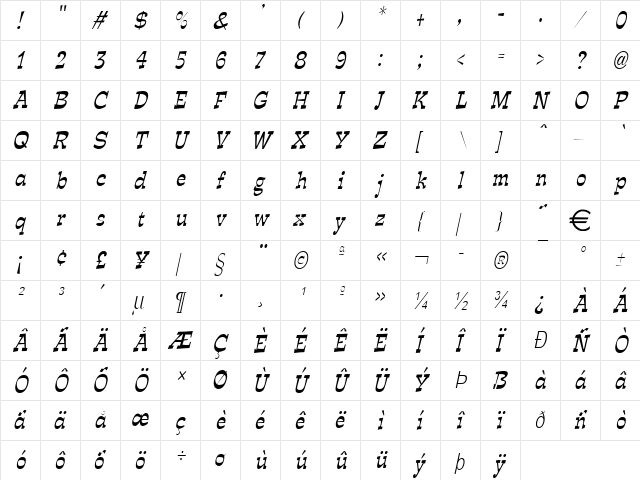
ExposeThinCondensed Italic Font Preview
Design Context for ExposeThinCondensed Typeface
ExposeThinCondensed is a composed and adaptable typeface that performs quietly and consistently across a wide range of design contexts. The slanted form adds forward momentum and visual energy. Its slender proportions lend an understated elegance to any composition. The condensed width makes it efficient for tight spaces without sacrificing legibility.